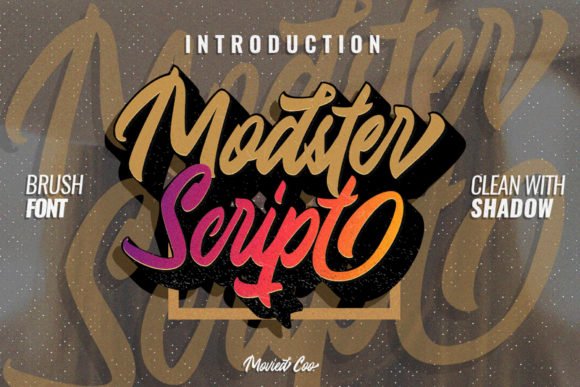
Introducing Modster Script, the font that captures the essence of urban living! Inspired by the vibrant streets and modern architecture, this script font exudes a touch of sophistication and edginess. Each letter is meticulously handcrafted, flowing seamlessly to create a captivating and visually stunning aesthetic.
But Modster Script is more than just a pretty face. It comes with an extra shadow, a subtle yet powerful design element that adds depth and dimension to your creations. Whether you're designing logos, social media graphics, or eye-catching posters, Modster Script will elevate your designs to new heights.
Its modern and unique character makes it perfect for brands and individuals looking to stand out from the crowd. It's a font that speaks volumes, conveying a sense of confidence, creativity, and urban flair. Whether you're a seasoned designer or just starting out, Modster Script is the perfect tool to add a touch of urban sophistication to your projects.